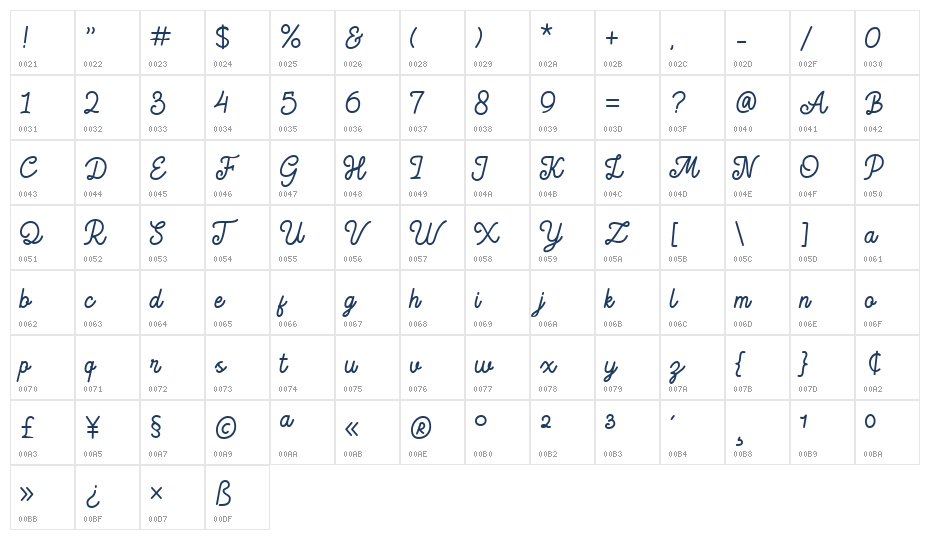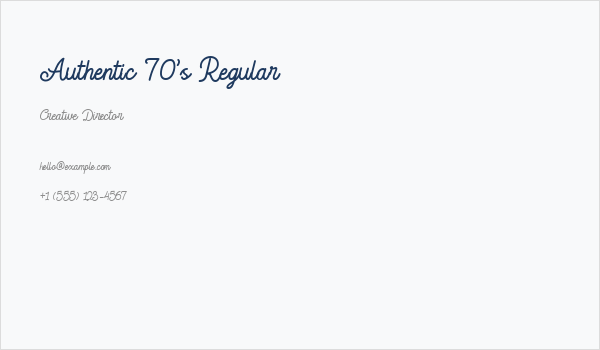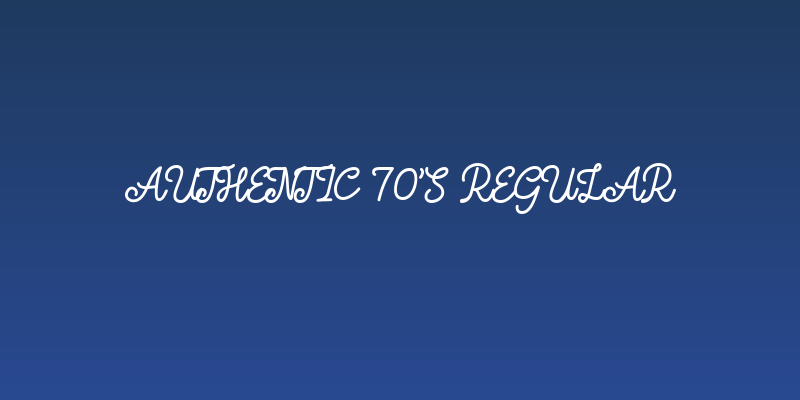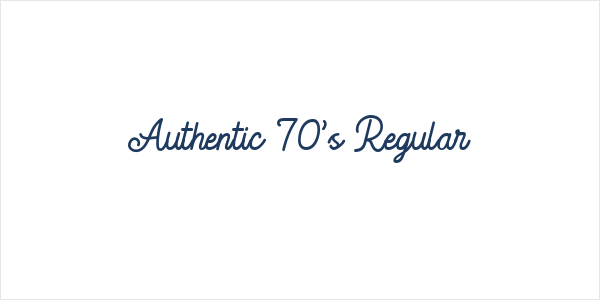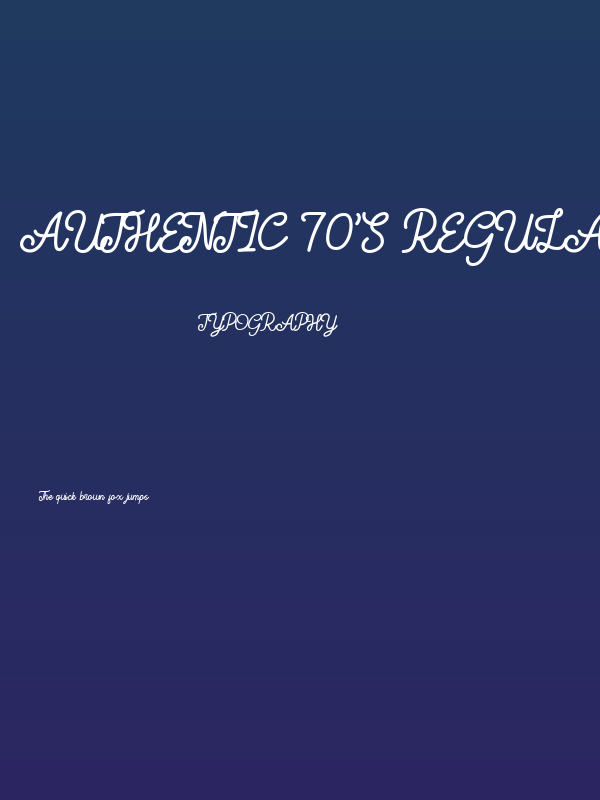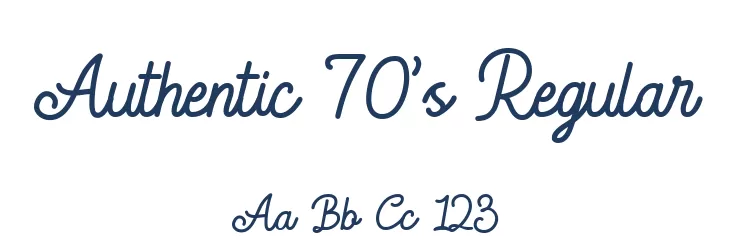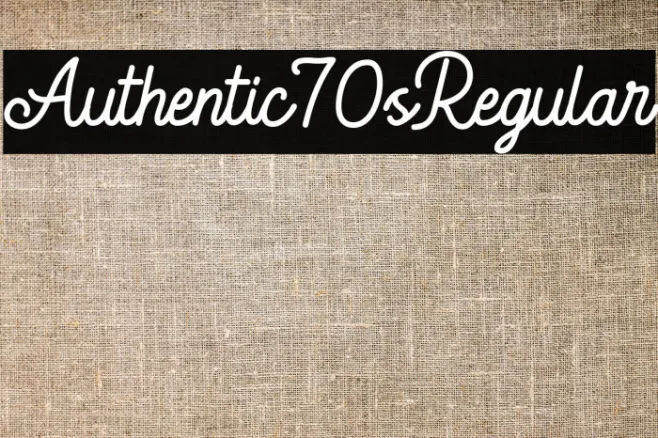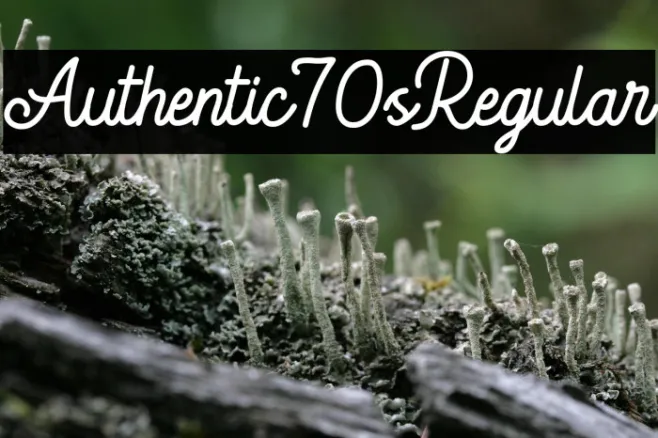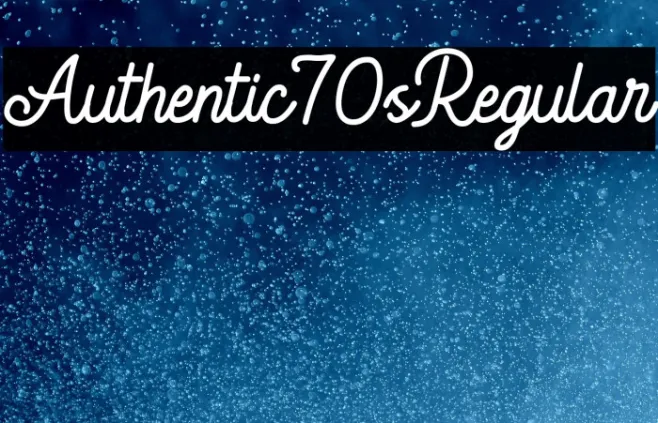
Authentic 70's Regular Font
Authentic 70's Regular Description
A cursive, script style font with a flowing, handwritten appearance, featuring smooth curves and a slightly playful yet elegant look.
| Use Case | Invitations, greeting cards, branding, logos, decorative headings |